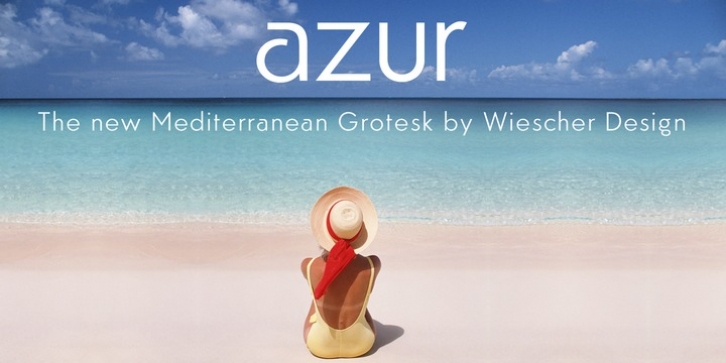
Publisher: Wiescher Design
»Azur« is my homage to the beautiful Côte d'Azur and the Provence Alpes Maritime Region. Classic proportions with a few special letterforms here and there to give the font its unique, charming, Mediteranean character. Some ligatures and old style figures complete the sets. I added a soft cornered rounded version to make it an even friendlier typeface. Of course there are real italic sets to make things complete. Enjoy!